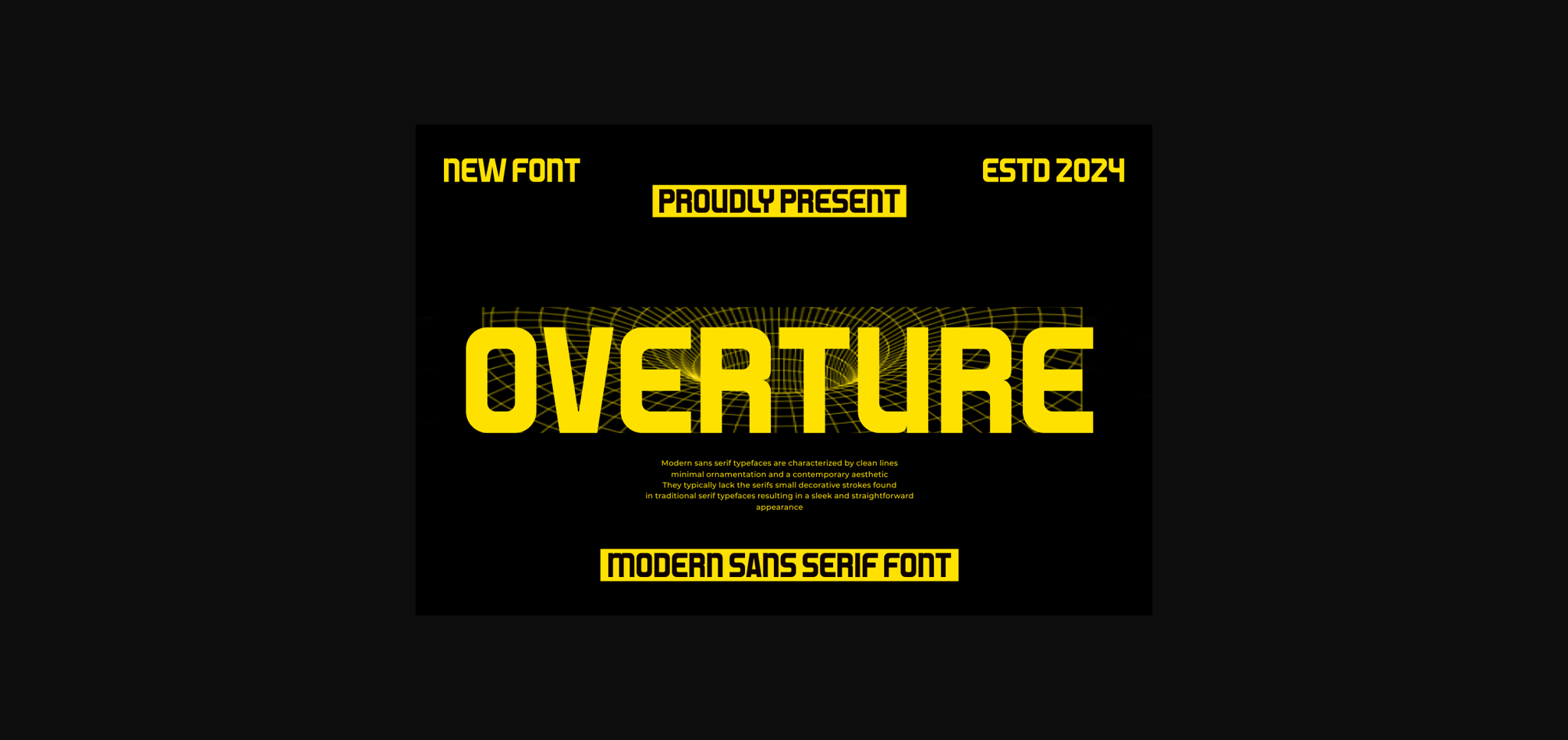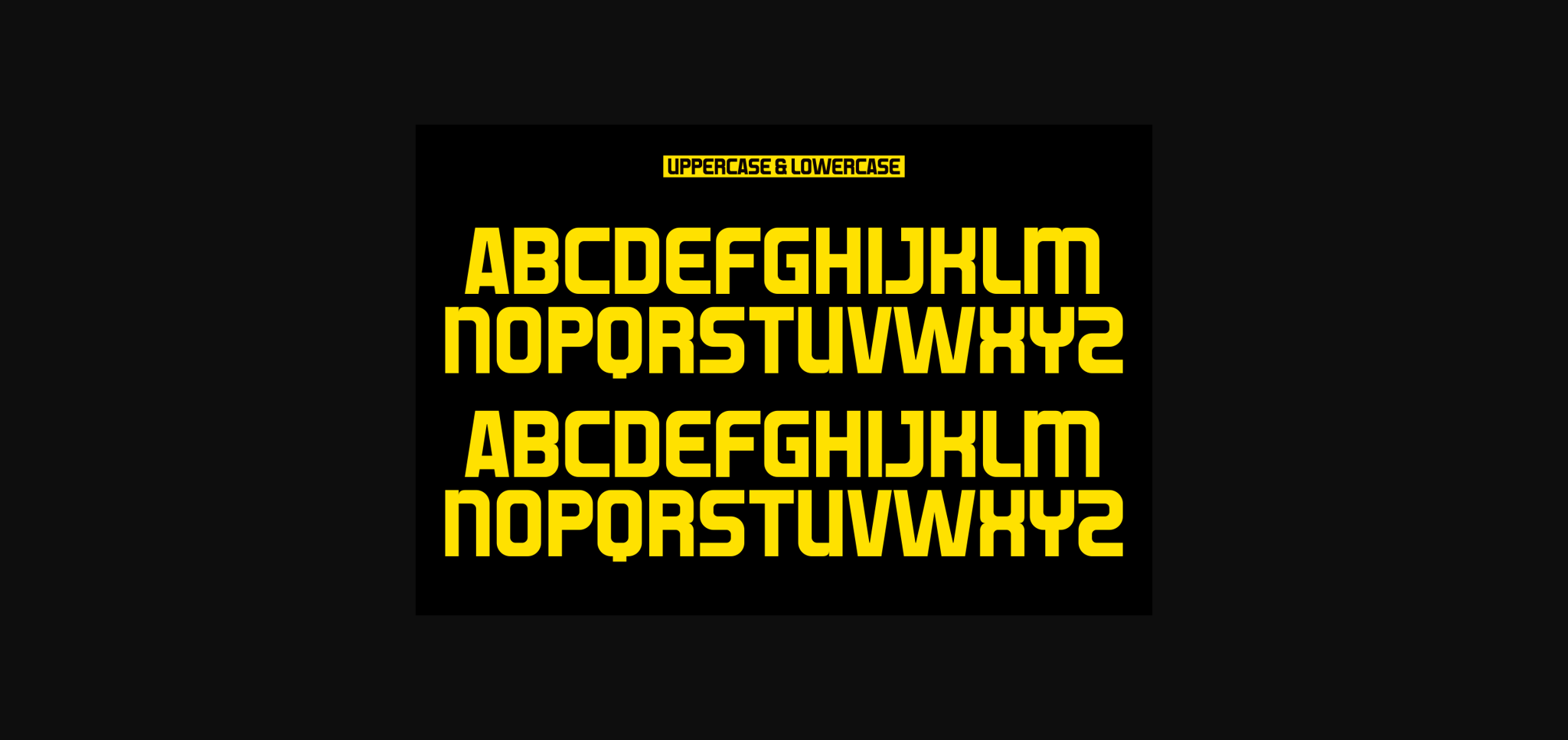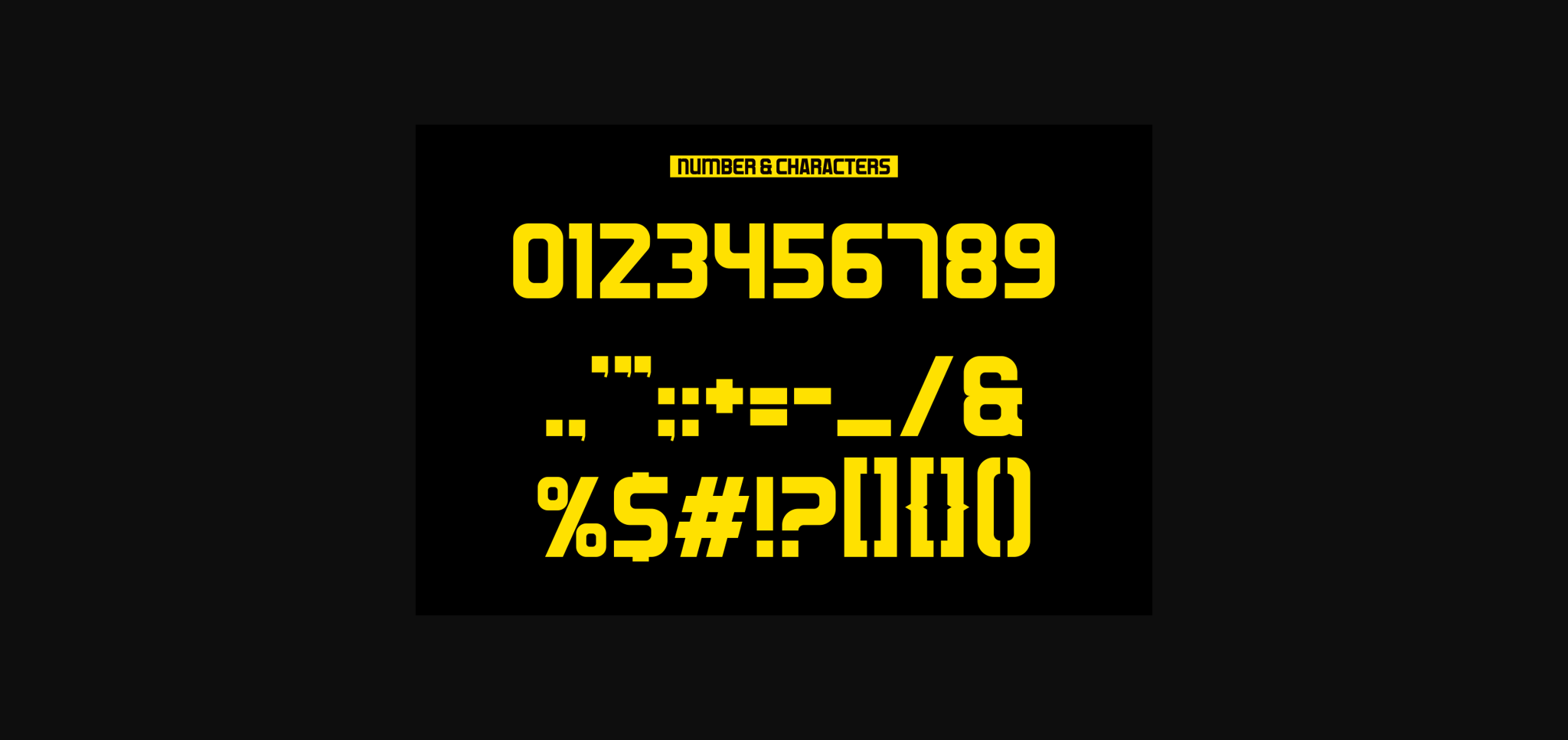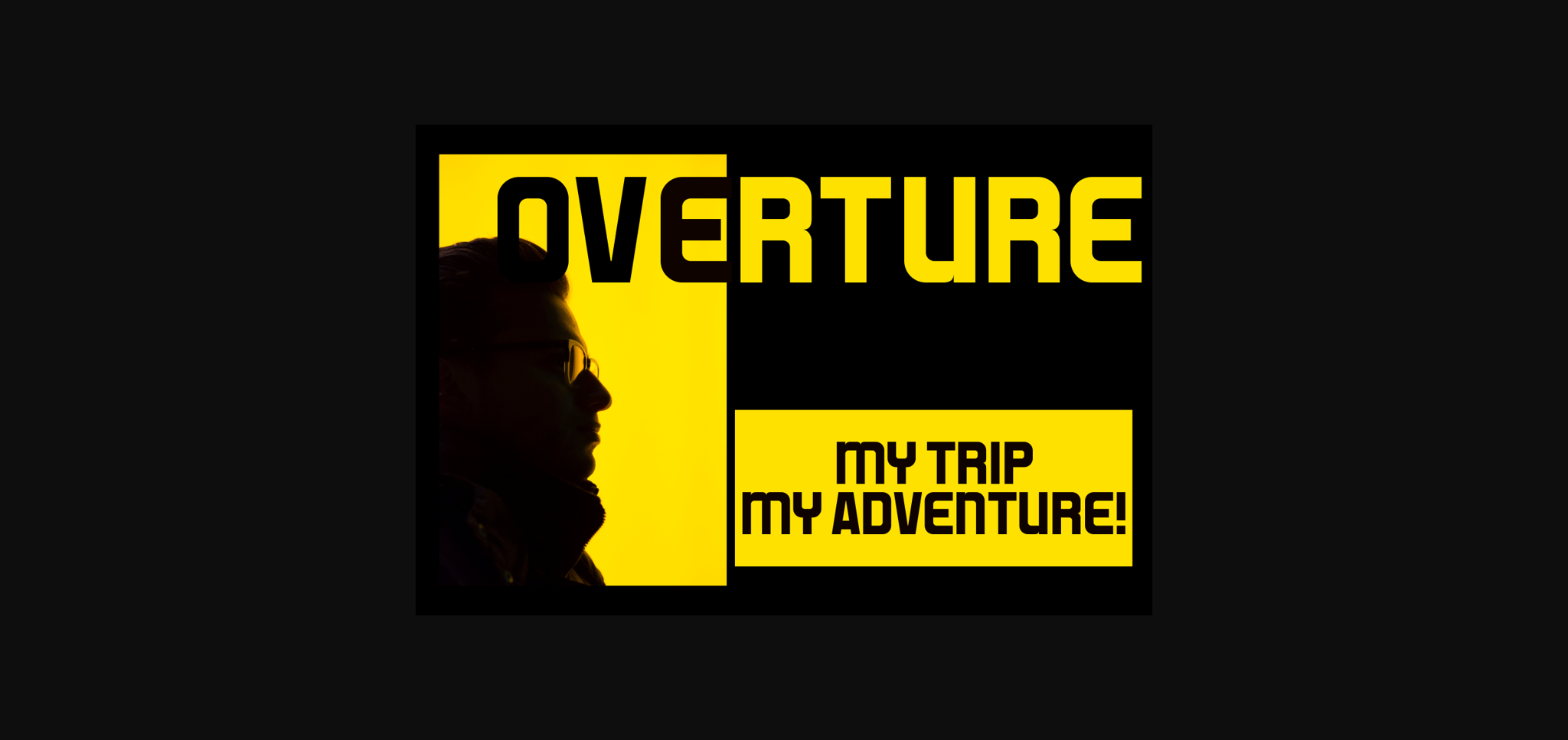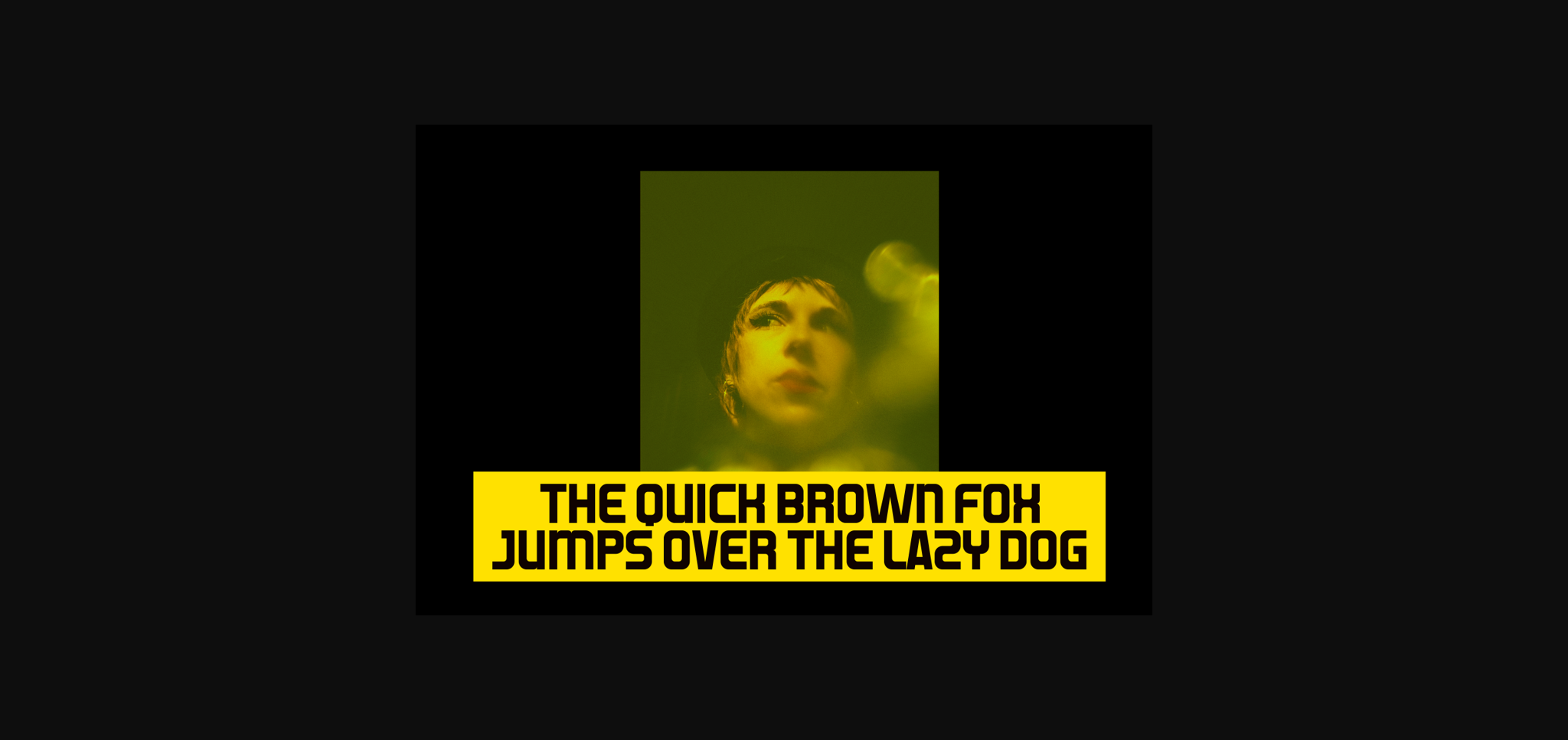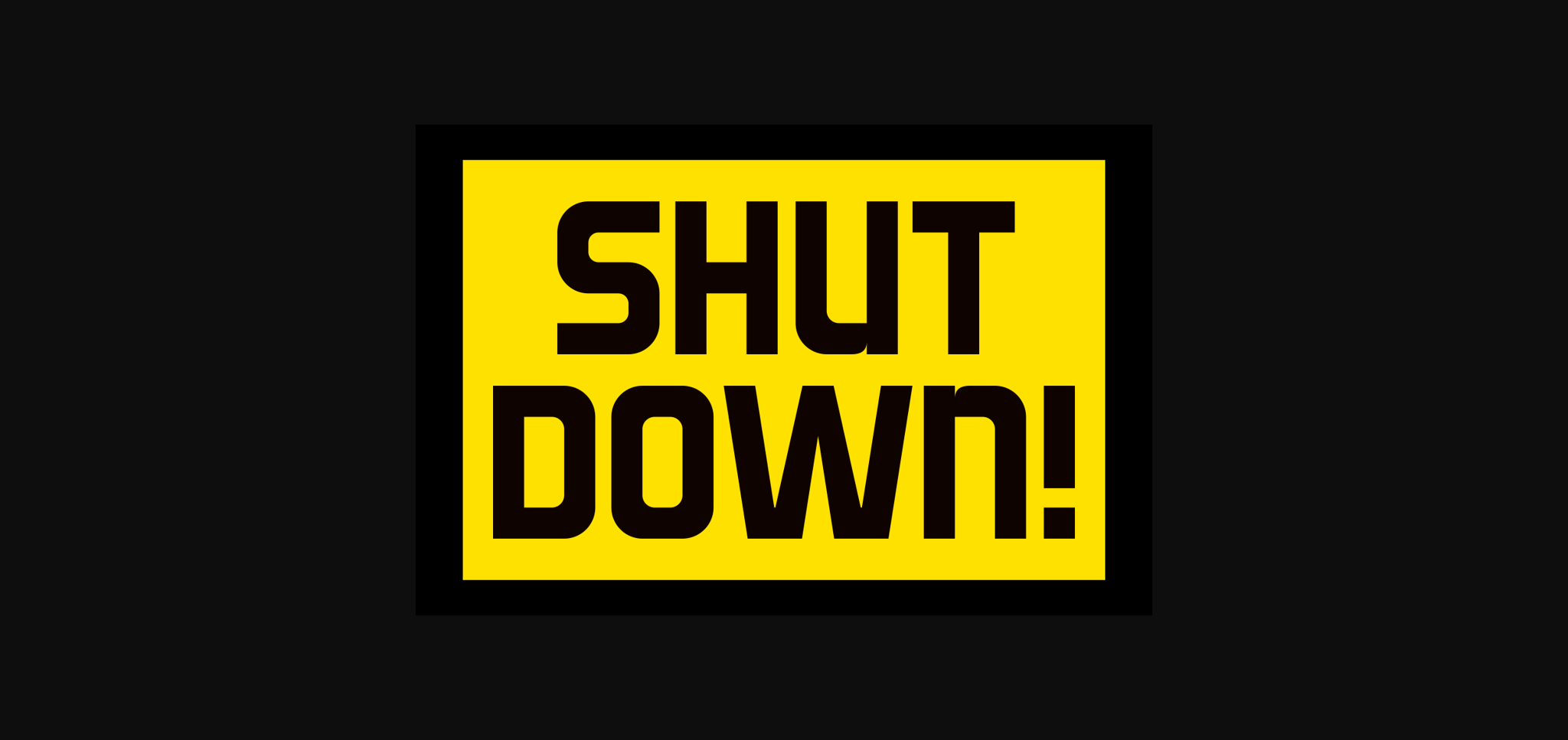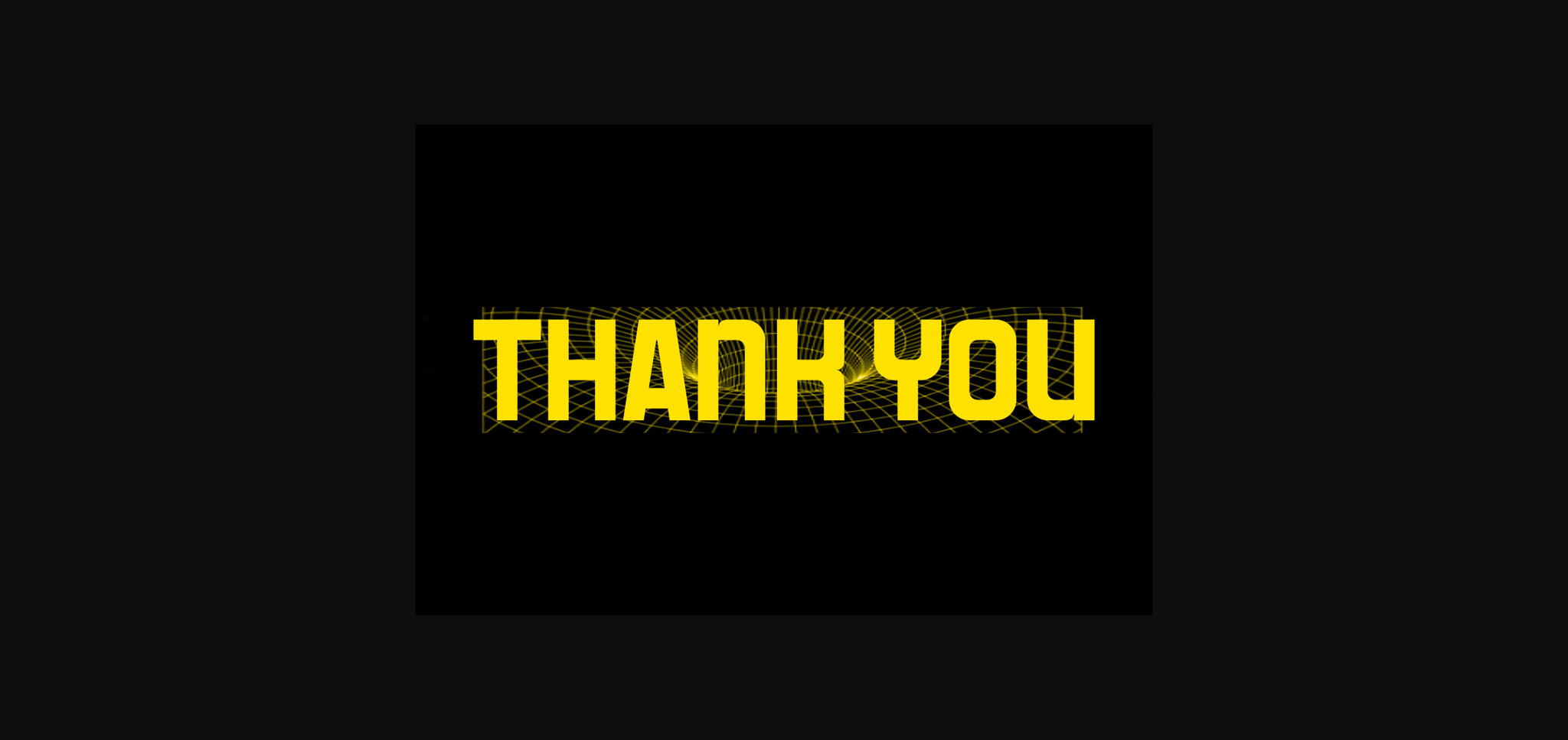
Overture Font
About Overture Font
**OVERTURE** is an authentic and unique modern sans serif font that is perfect for professional and product branding needs. This font is suitable for any branding project such as quotes, logos, blog headers, posters, ribbons, letters, invitations, stationery, etc… It is designed to be versatile and flexible and can be used on a variety of projects and mediums. extraordinary in a variety of contexts.